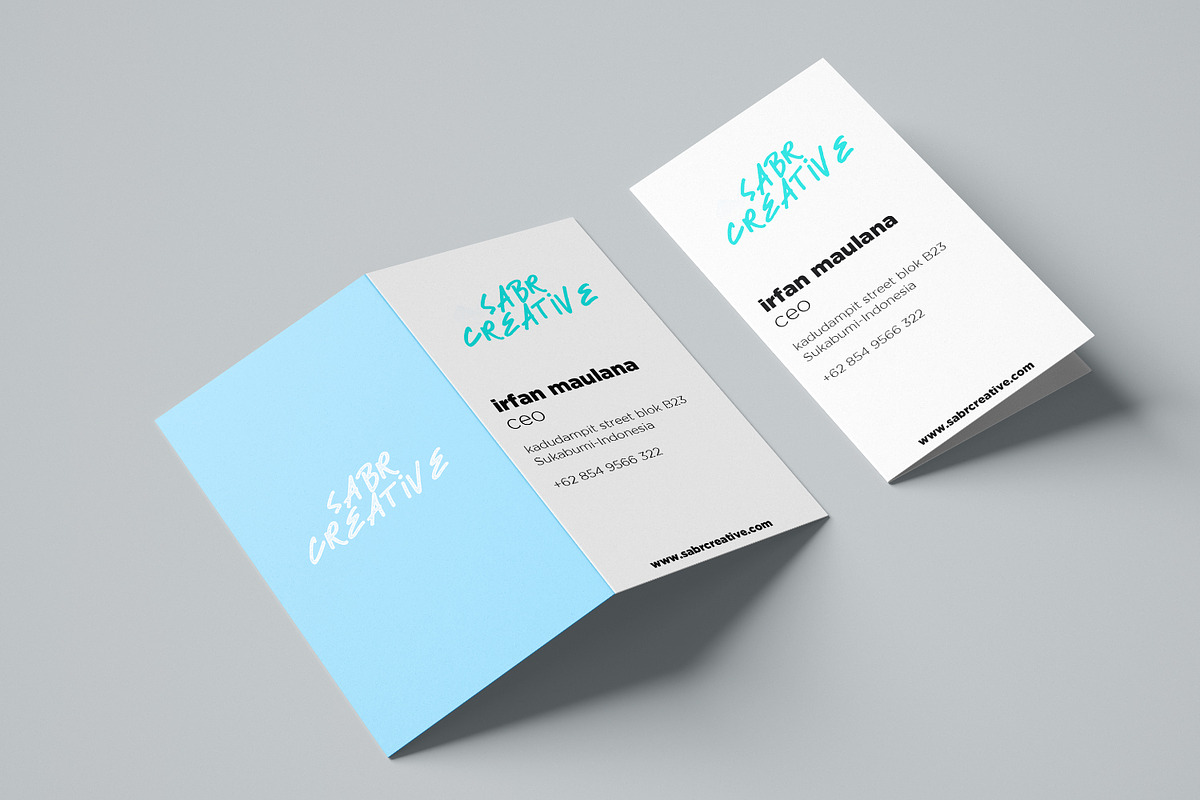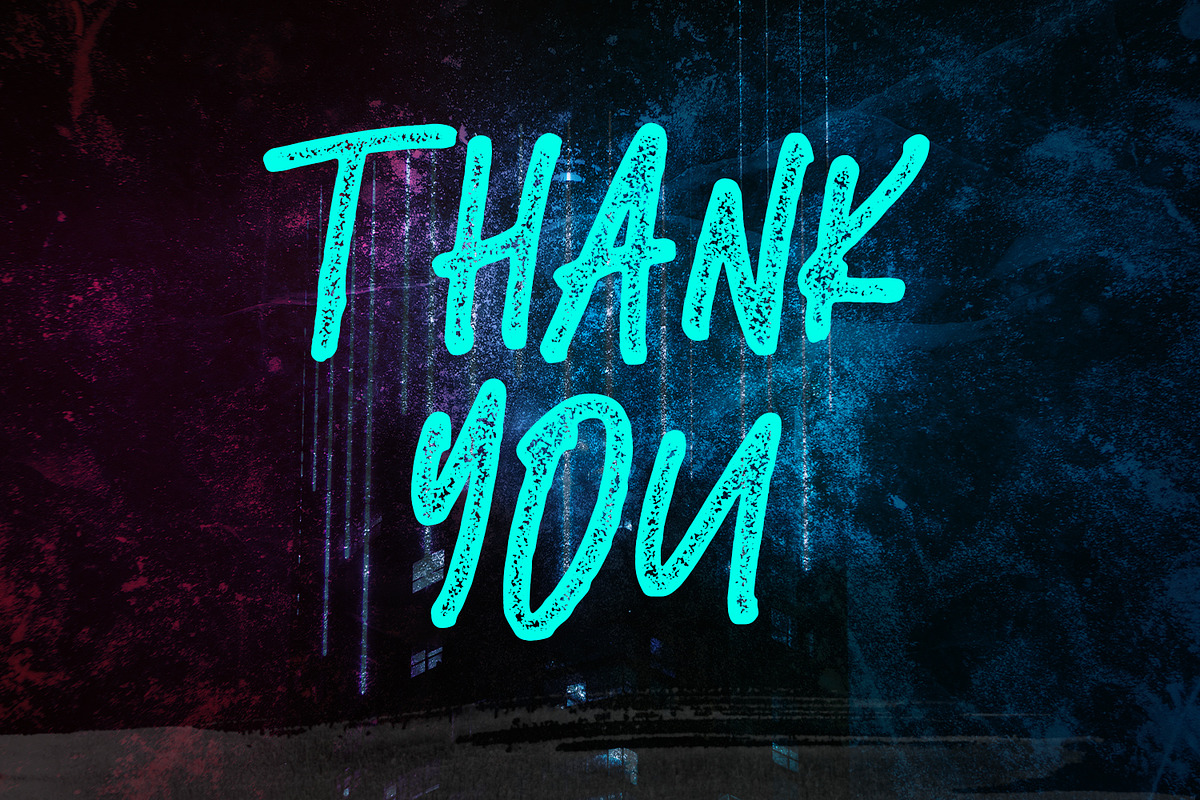
Black Bass
Introducing Black Bass Font with a style that is very strong, bold, and natural. Having two different styles namely Clean and Stamp allows you to create diverse projects with strong styles. Black Bass Font is ideal for logos, clothing, T-shirts, Hoodies, quotes, product packaging, or anything that requires a strong design.
Foreign languages support: ÀÁÂÃÄÅÆÇÈÉÊËÌÍÎÏÐÑÒÓÔÕÖØÙÚÛÜÝßàáâãäåæçèéêëìíîïðñòóôõöøùúûüýÿ